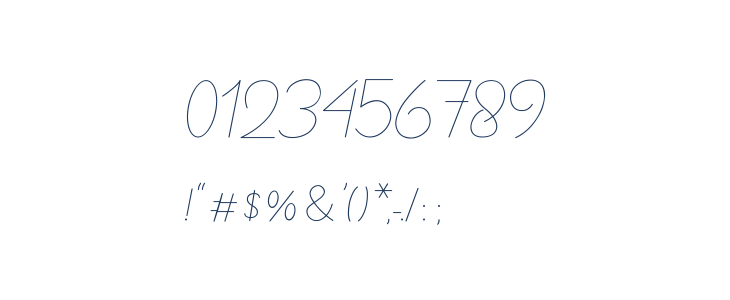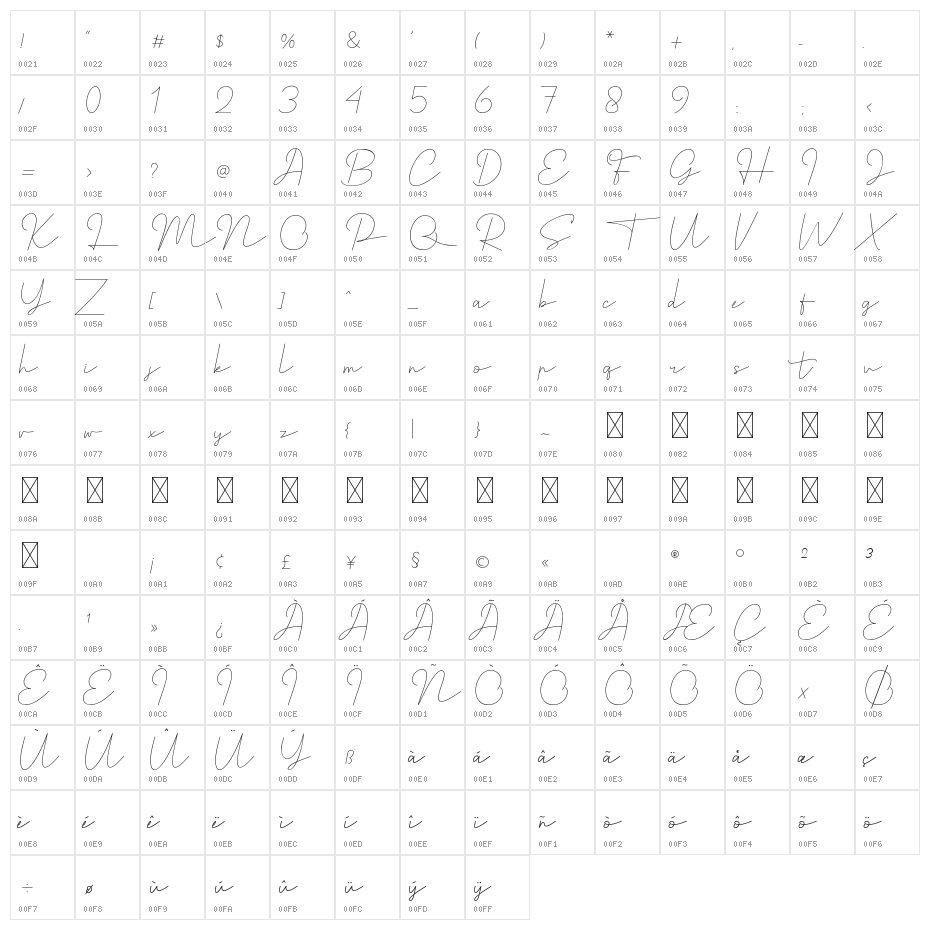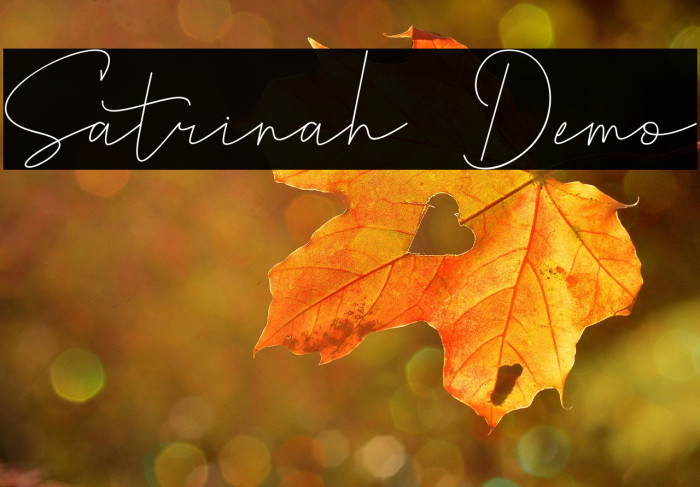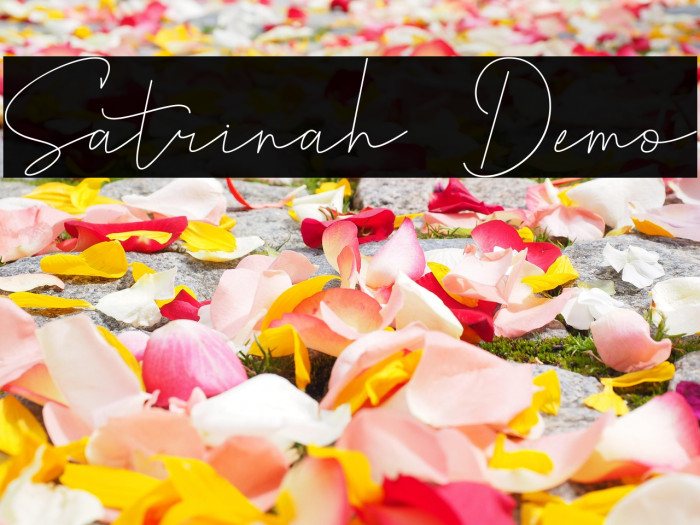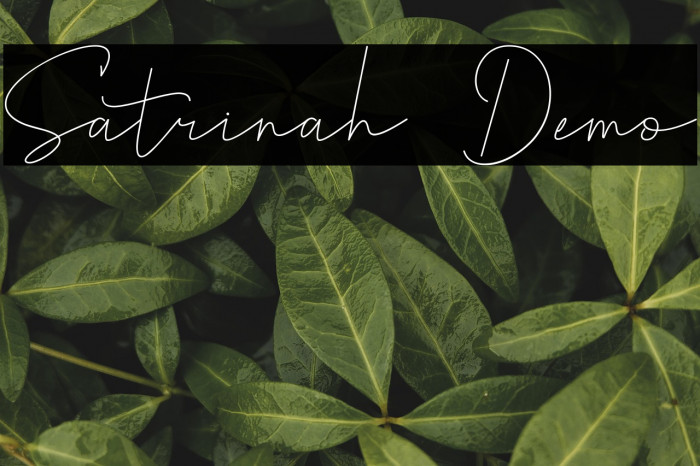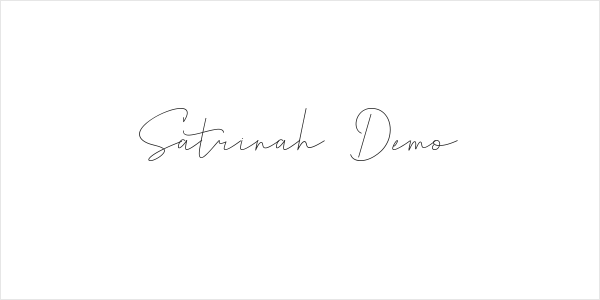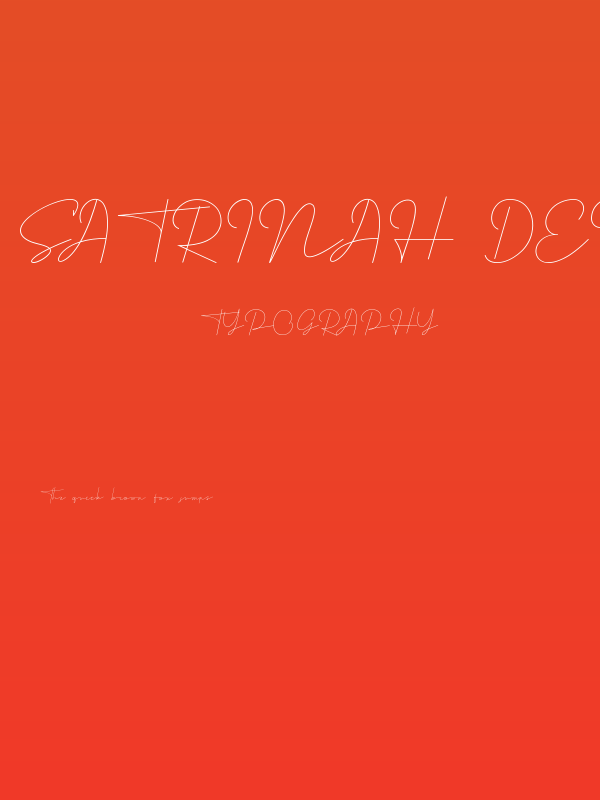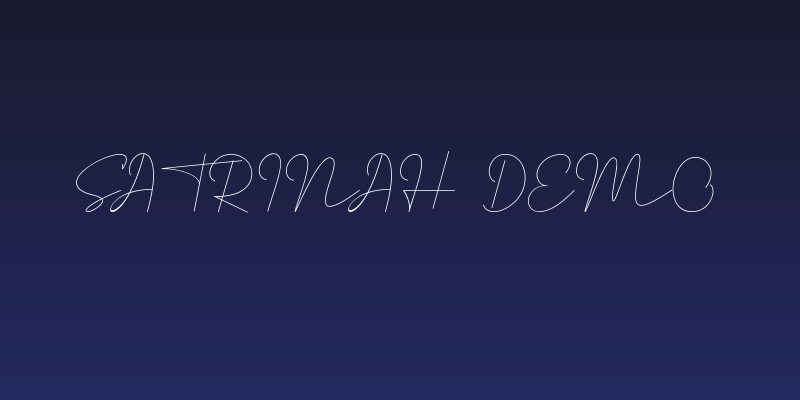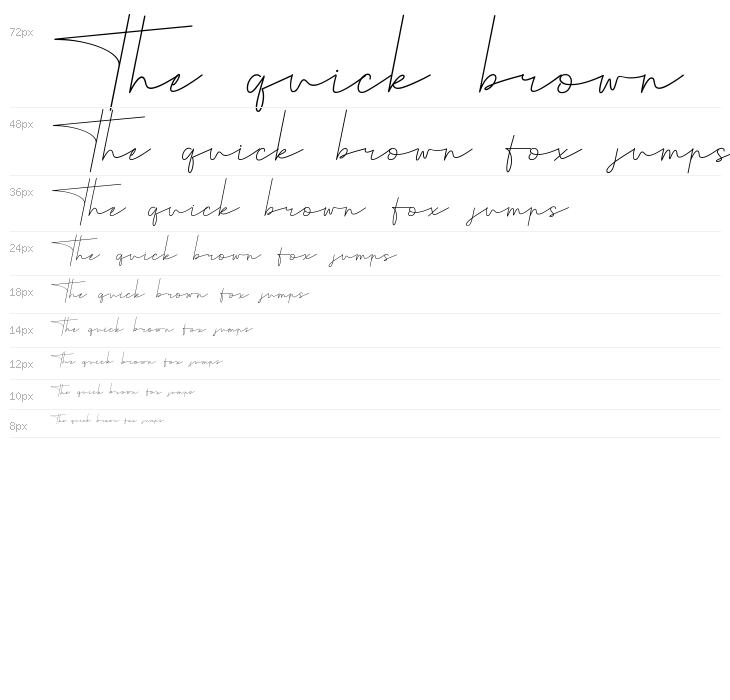
Satrinah Demo Font
Satrinah Demo Description
This font features an elegant and flowing script style, characterized by its smooth, continuous strokes and a delicate, handwritten appearance. The uppercase letters are slightly more structured, while the lowercase letters exhibit a graceful, cursive flow. The numerals are consistent with the overall style, maintaining a sense of fluidity and elegance. Special characters are seamlessly integrated, enhancing the font's versatility. The thin lines and gentle curves give it a sophisticated and airy feel, making it suitable for a variety of creative projects.
| Overall Style | Elegant, Handwritten |
| Proposed Projects | Ideal for wedding invitations, greeting cards, branding, and elegant logo designs. |